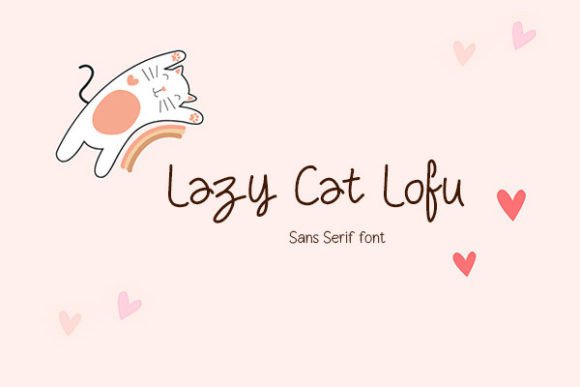
Dive into the world of Lazy Cat LoFu Font, a captivating creation by TanoiCartoonist that exudes charm, whimsy, and contemporary style. This sans serif font, crafted with meticulous attention to detail, is a visual delight that will transform your creative projects into masterpieces.
Unleash your imagination and let Lazy Cat LoFu Font take you on a journey of creativity. With its playful and approachable demeanor, this font is the perfect companion for your diary planner, adding a touch of fun and individuality to your daily entries. Let your thoughts and ideas dance across the pages, adorned with the unique charm of Lazy Cat LoFu.
Express your gratitude with heartfelt thank-you cards, adorned with Lazy Cat LoFu's whimsical touch. Its playful curves and cheerful demeanor will convey your appreciation in a way that words alone cannot. Spread joy and laughter with greeting cards featuring quotes that come alive with Lazy Cat LoFu's playful spirit.
Elevate your brand's identity with a logo that reflects your playful and approachable nature. Lazy Cat LoFu's unique charm will make your logo unforgettable, leaving a lasting impression on your customers. Create posters that pop with color and creativity, using Lazy Cat LoFu to convey your message in a captivating and engaging way.
Transform your blog into a visual feast with Lazy Cat LoFu as your guiding light. Its playful and modern style will capture your readers' attention, inviting them to explore your content with curiosity and delight. Design bags, T-shirts, and clothing that stand out from the crowd with Lazy Cat LoFu's unique charm. Its versatile style complements a wide range of designs, adding a touch of whimsy to your everyday wardrobe.
With Lazy Cat LoFu Font, the possibilities are infinite. Its captivating energy and playful spirit will add a touch of magic to any project you undertake. Embrace the delightful world of Lazy Cat LoFu and let your creativity soar.